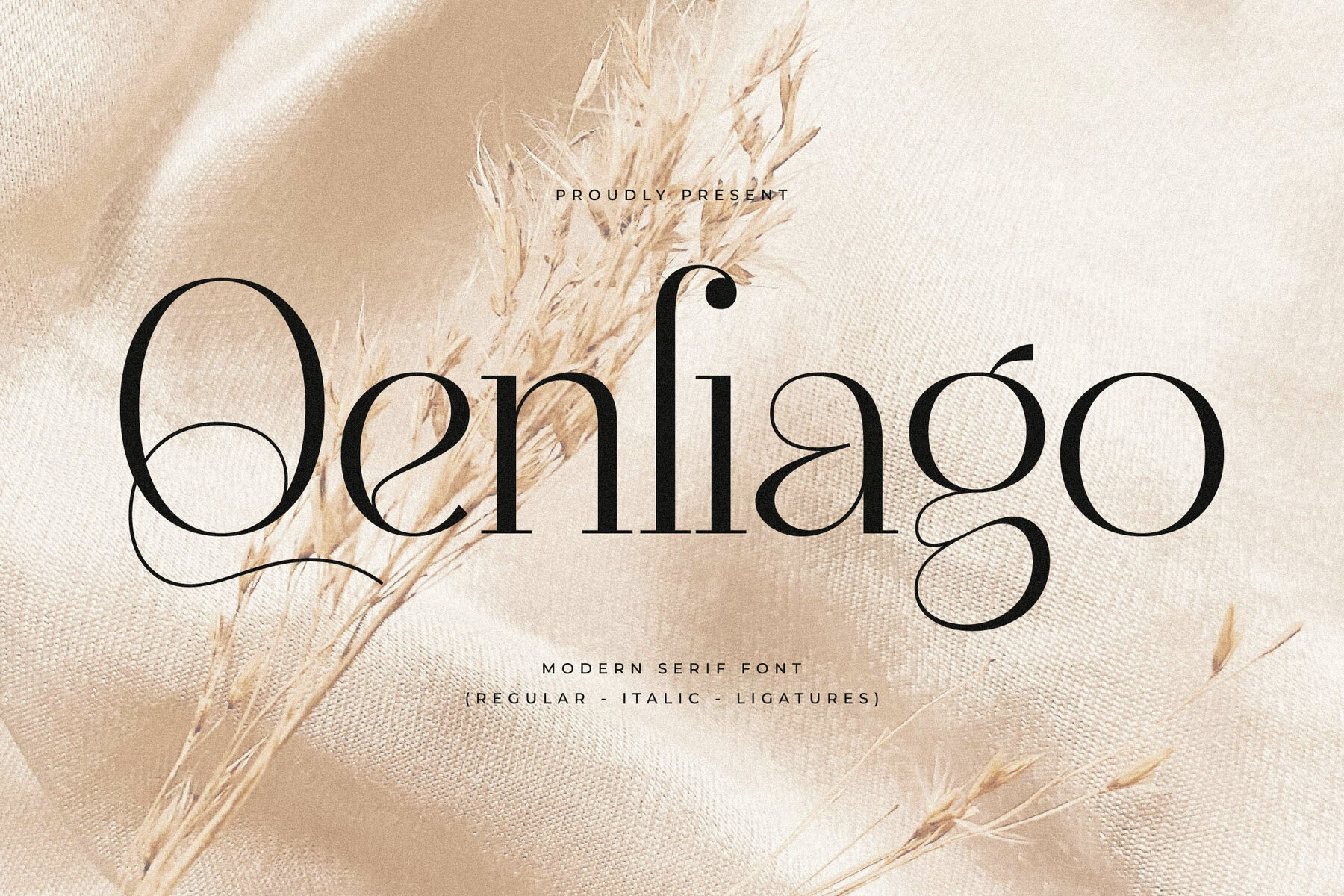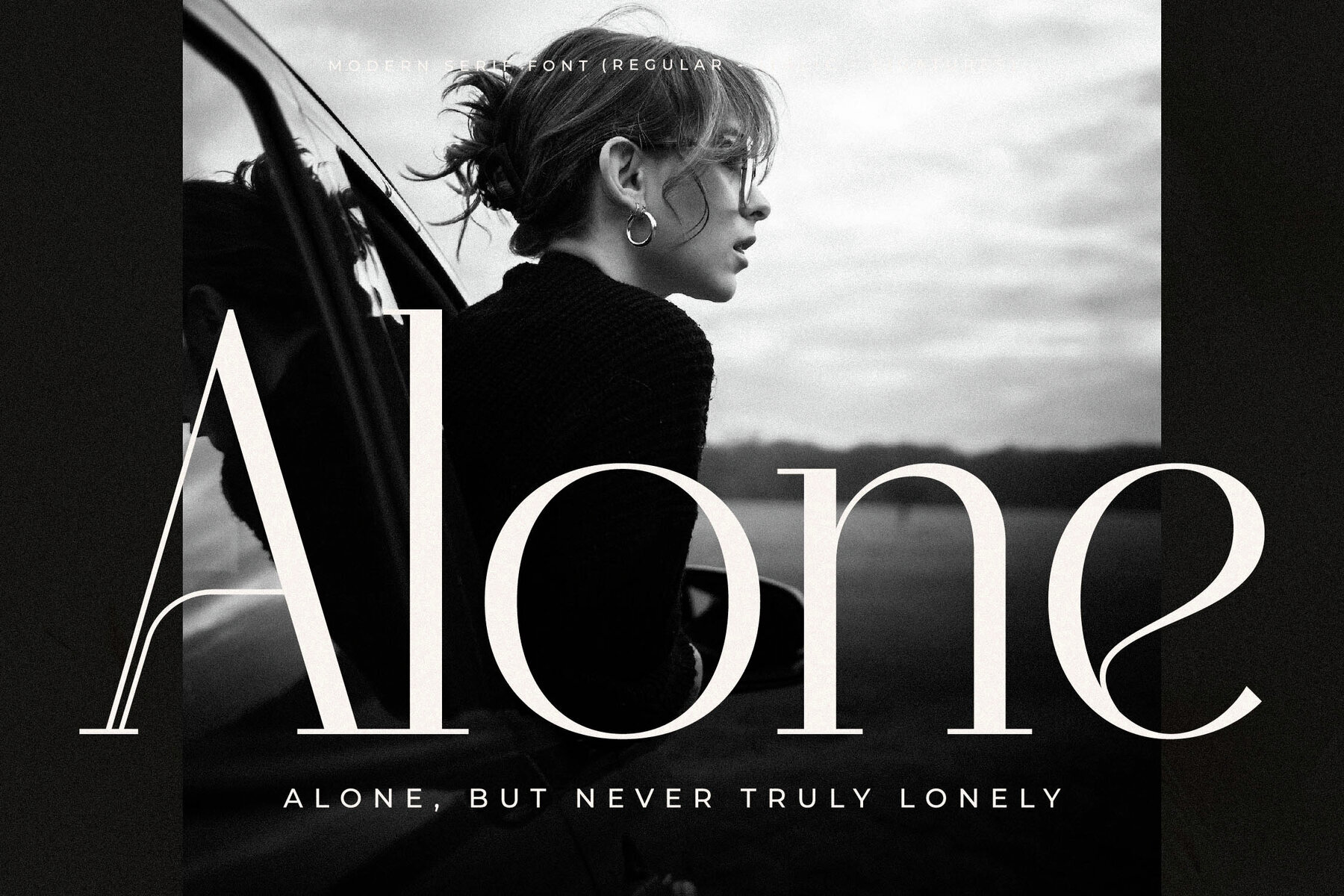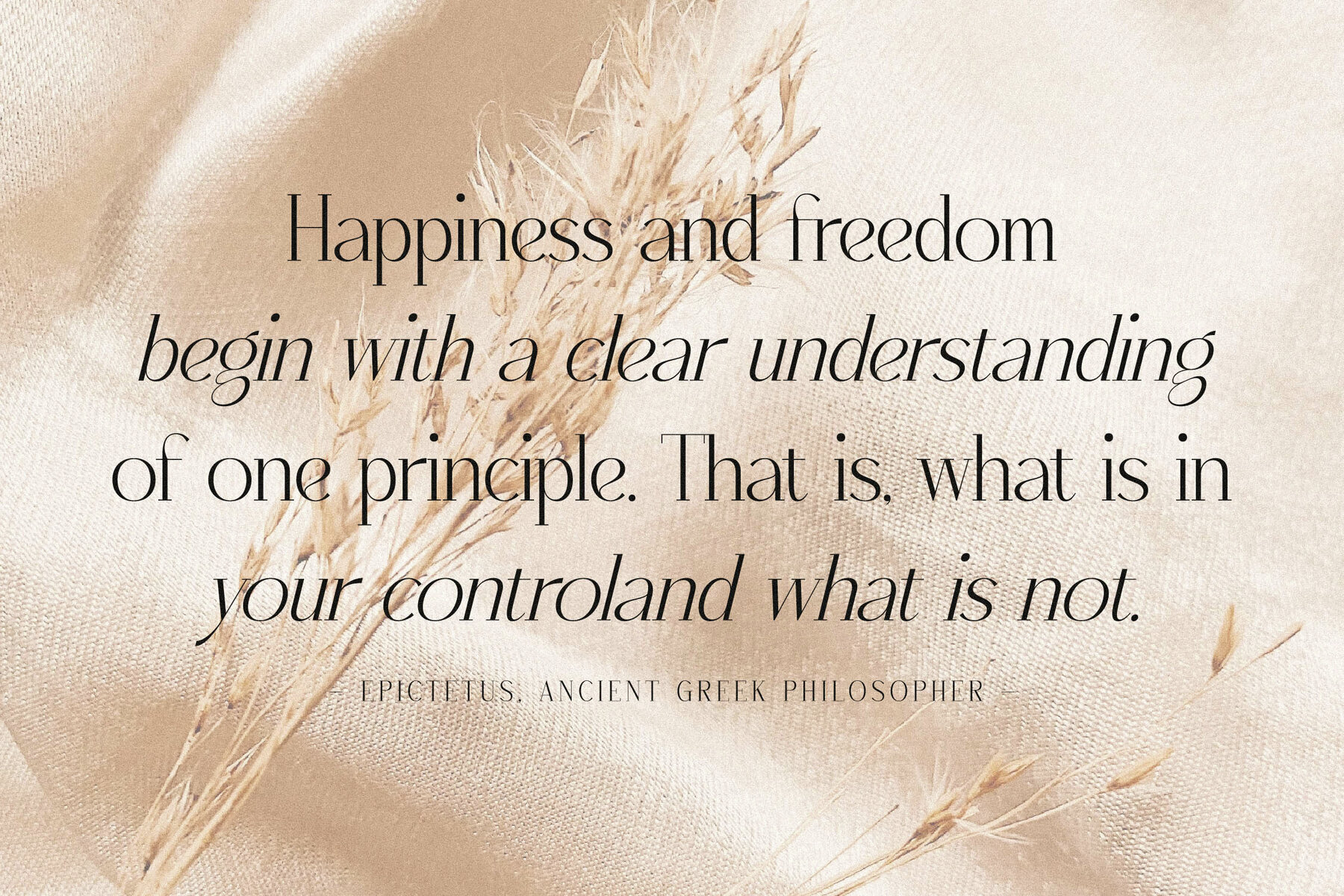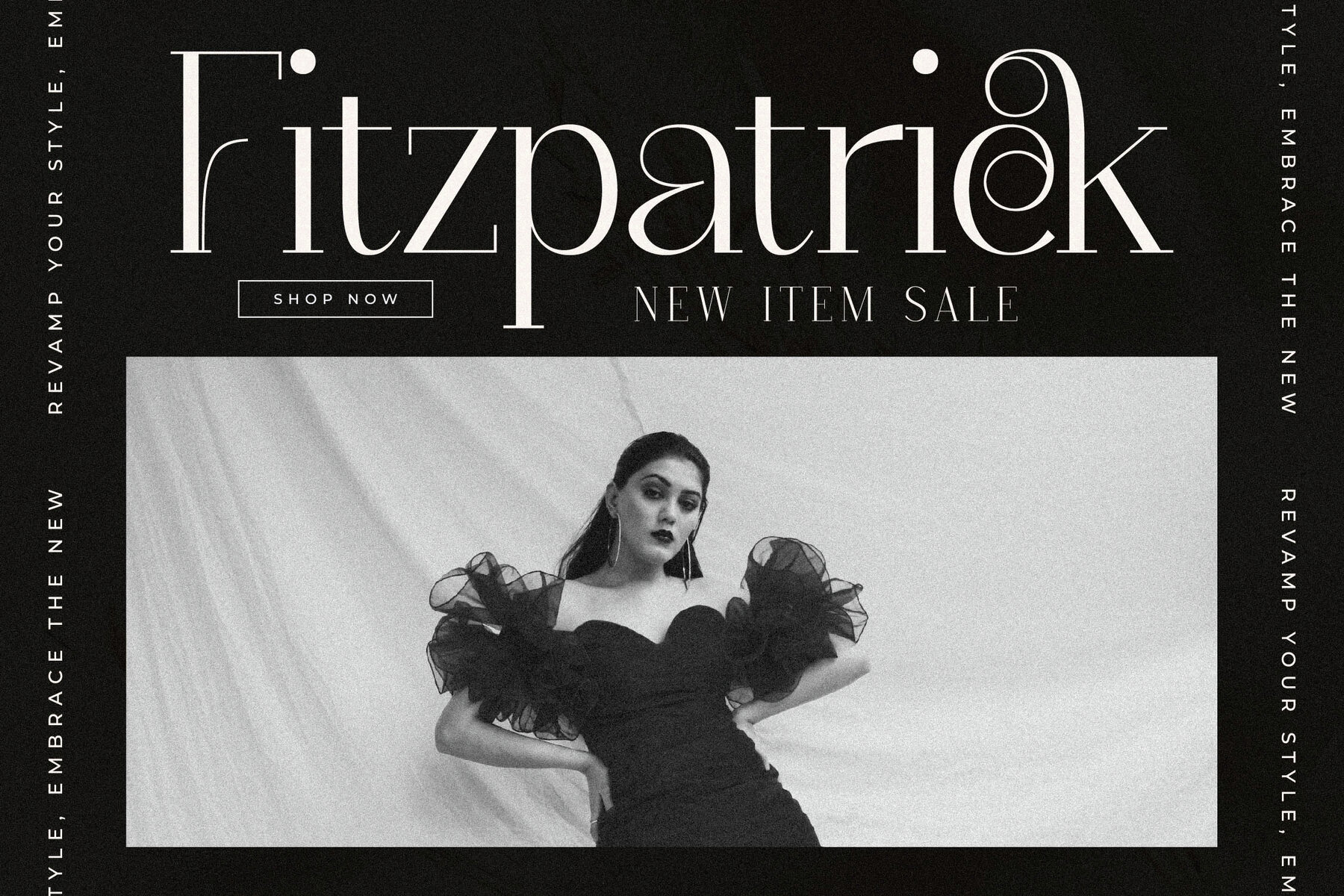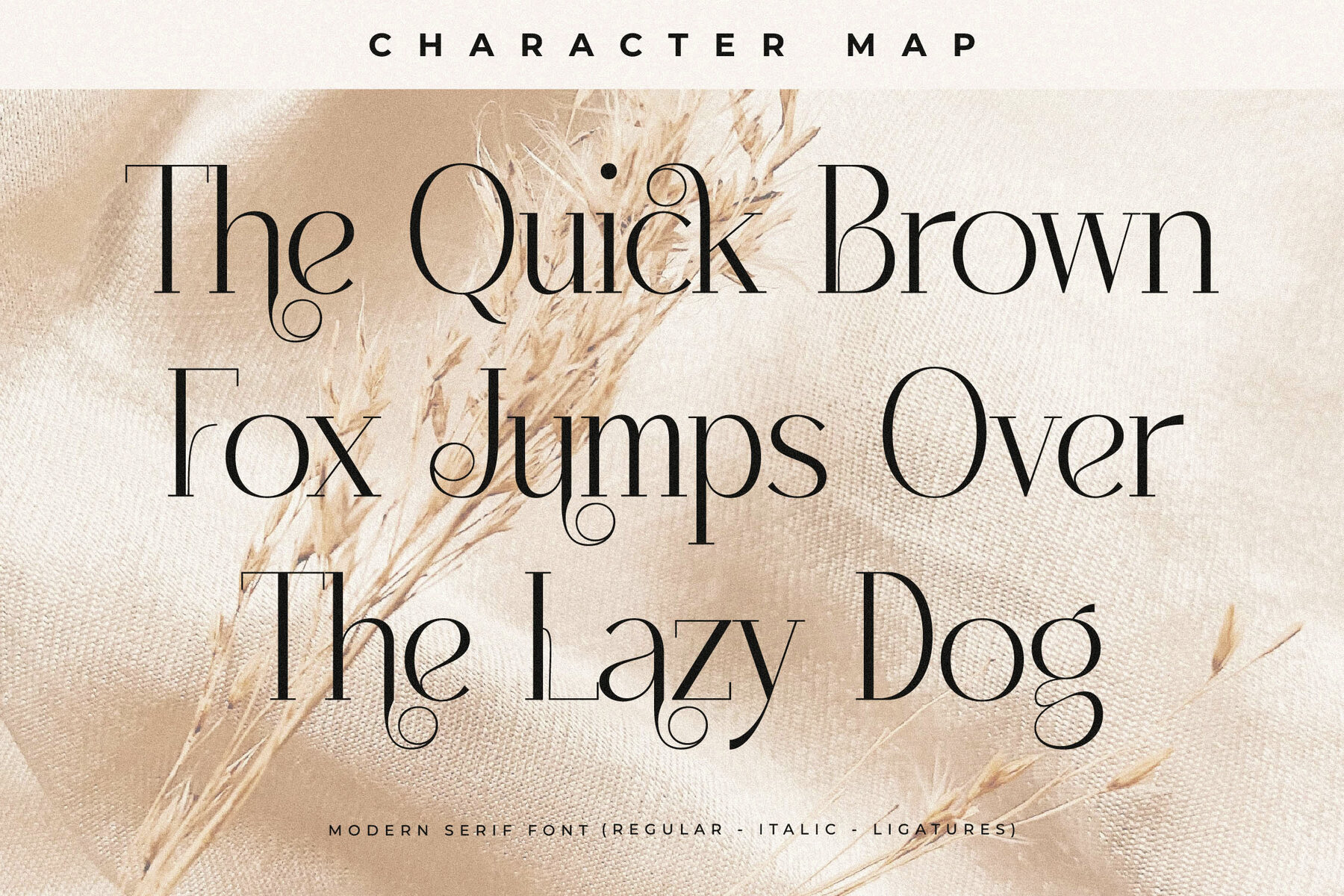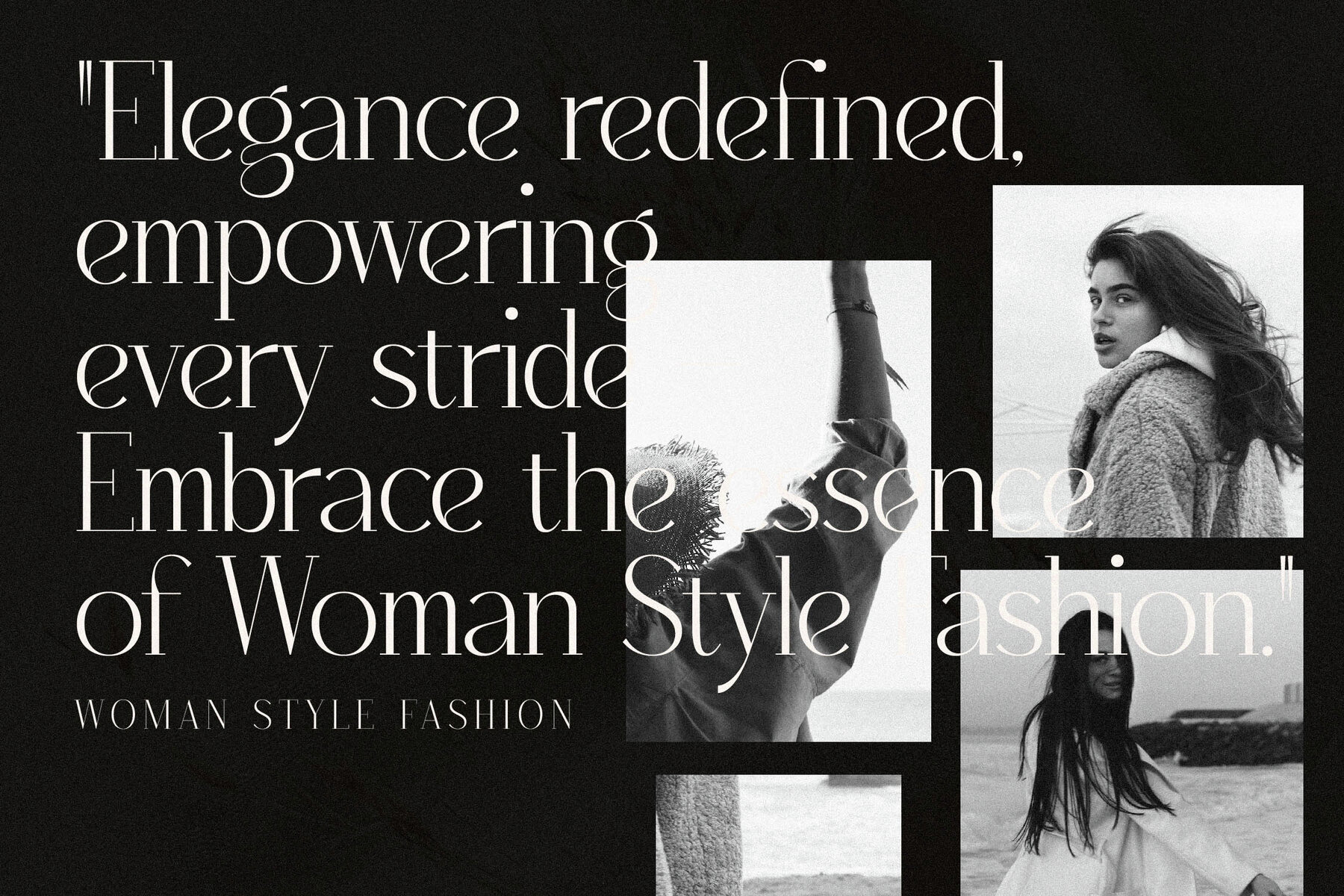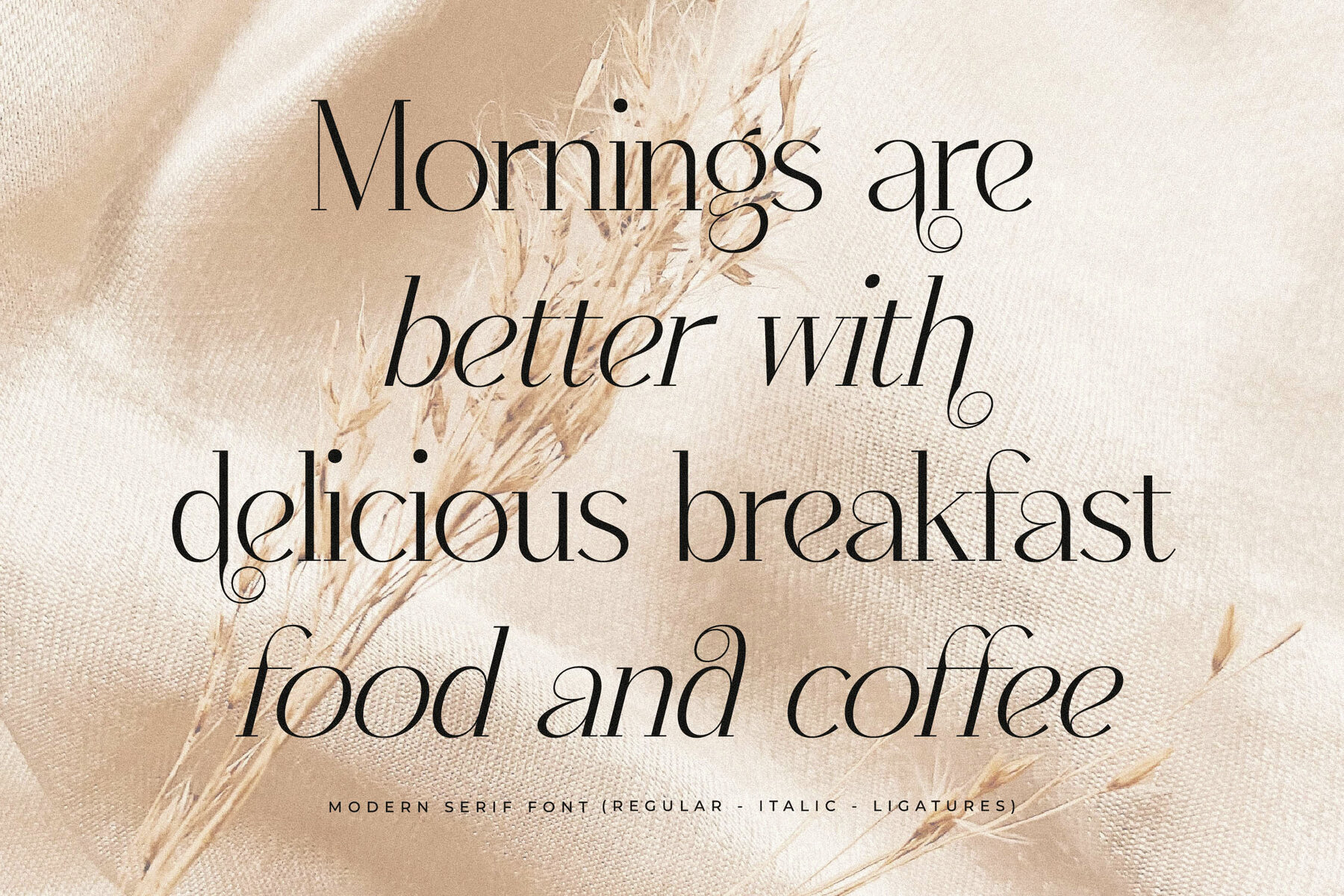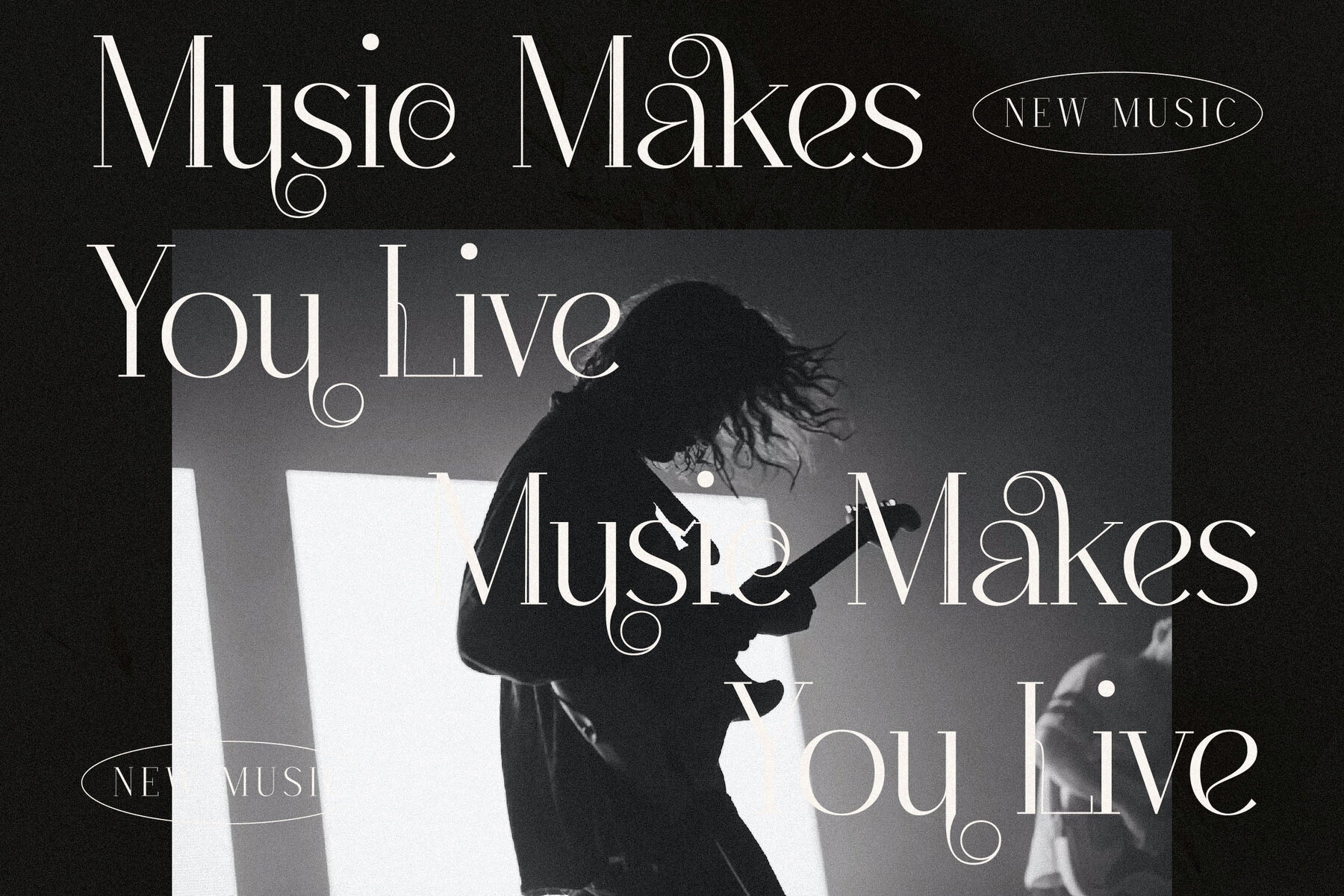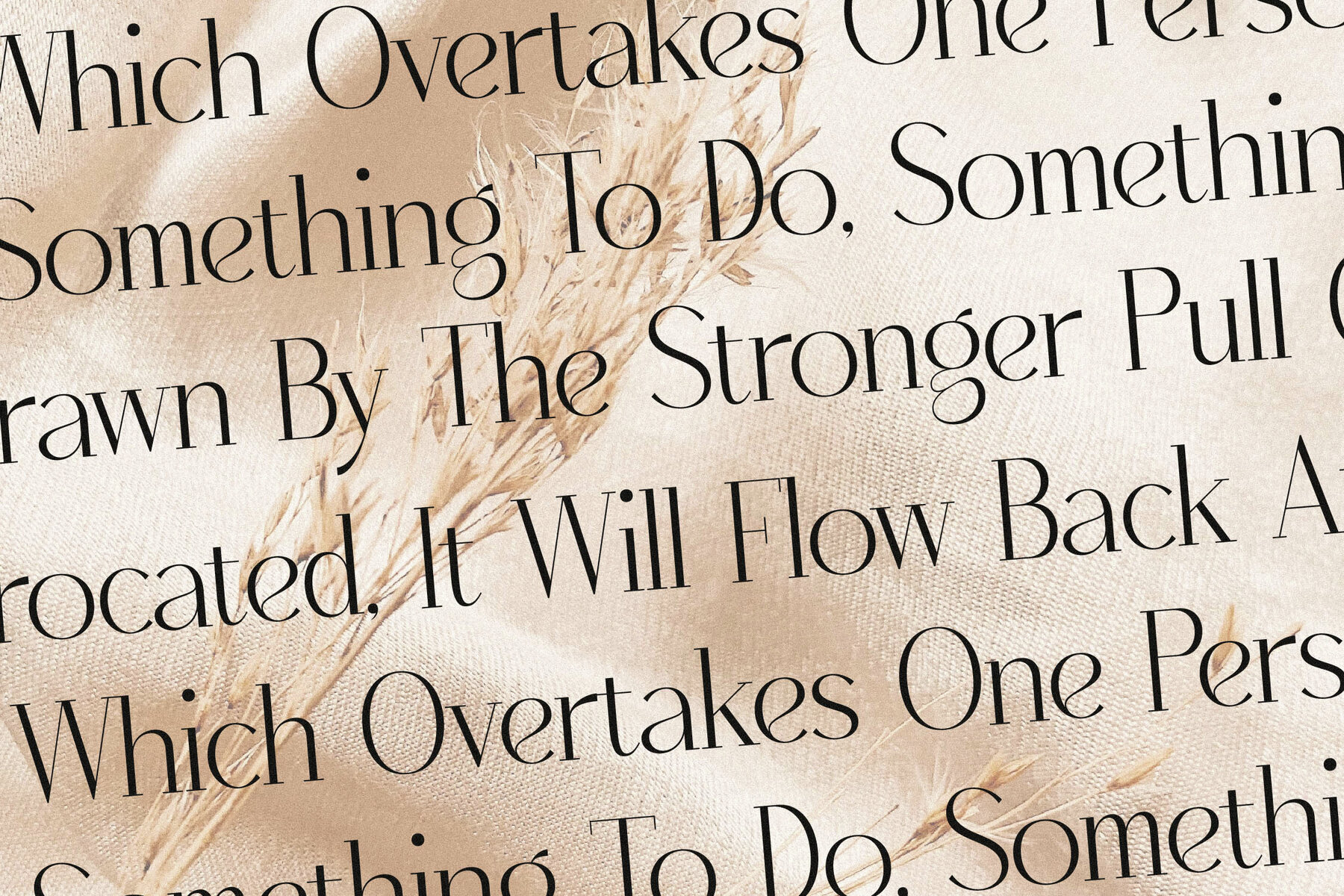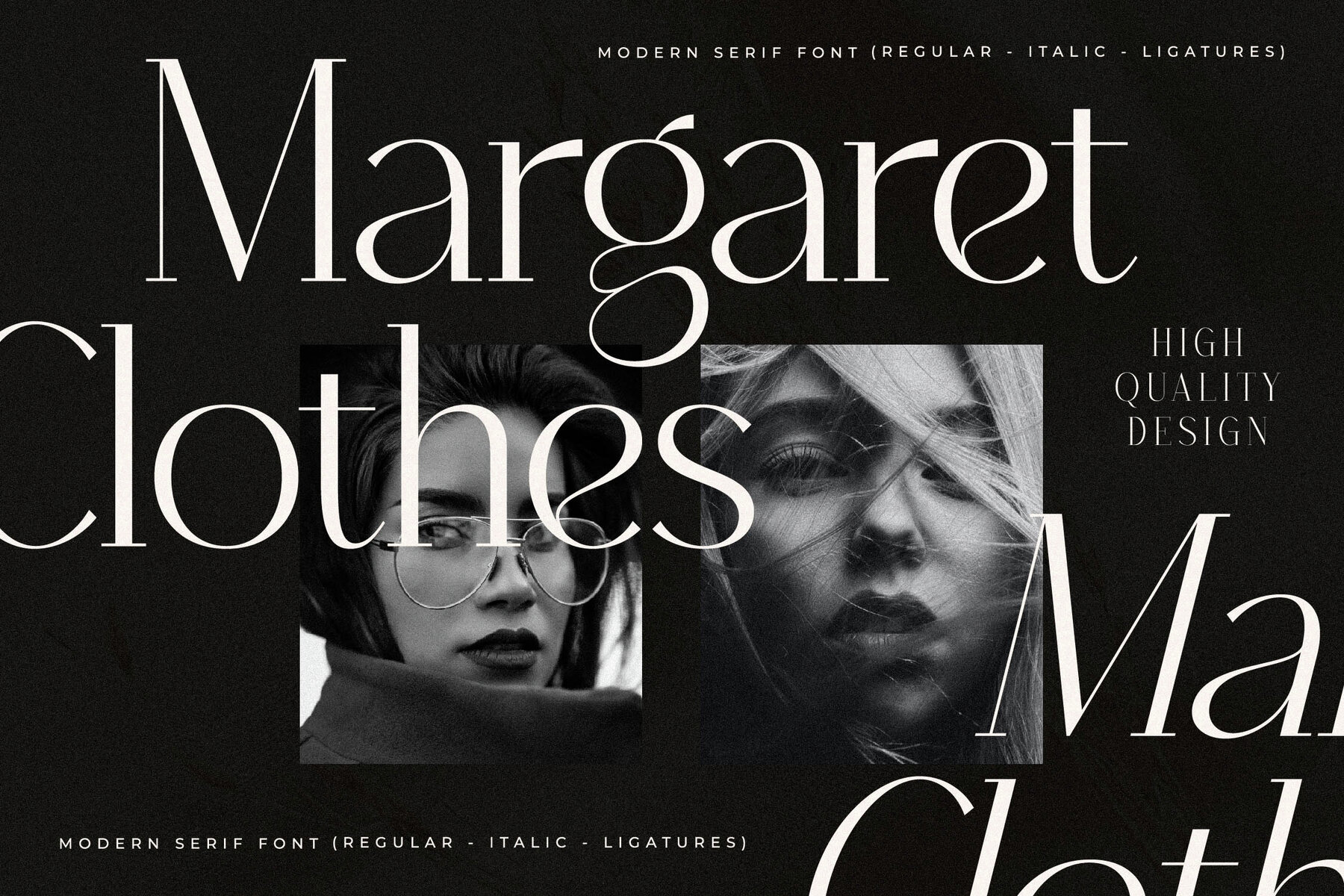
Qenliago Font
Qenliago Regular
Qenliago Italic
Explore the distinguished elegance of Qenliago, crafted by Storytype Studio. This serif typeface seamlessly blends modern style with classic undertones, making it an impeccable choice for luxury logos, book or movie titles, and high-fashion branding. It’s ideal for enhancing the look of magazines, clothing lines, and more.Qenliago Typeface